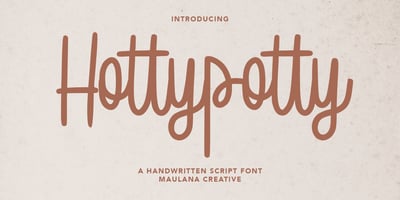
Hotty Potty
Hotty Potty font
Hotty Potty Font Family was designed by Gilang Maulana and published by Maulana Creative. Hotty Potty contains 1 styles and family package options. Hotty Potty is a handwritten script font, With a clean monoline stroke and fun characters. It has Opentype features of ligatures, makes it a perfect choice for branding and digital designs. Use this font for logos, social media, websites, blogs, instagram, social media, business cards, branding, and more! Hotty Potty font support multilingual more than 100+ language. and good pair for your secondary text font with sans or serif. Make a stunning work with Hotty Potty handwritten script font. Cheers, MaulanaCreative